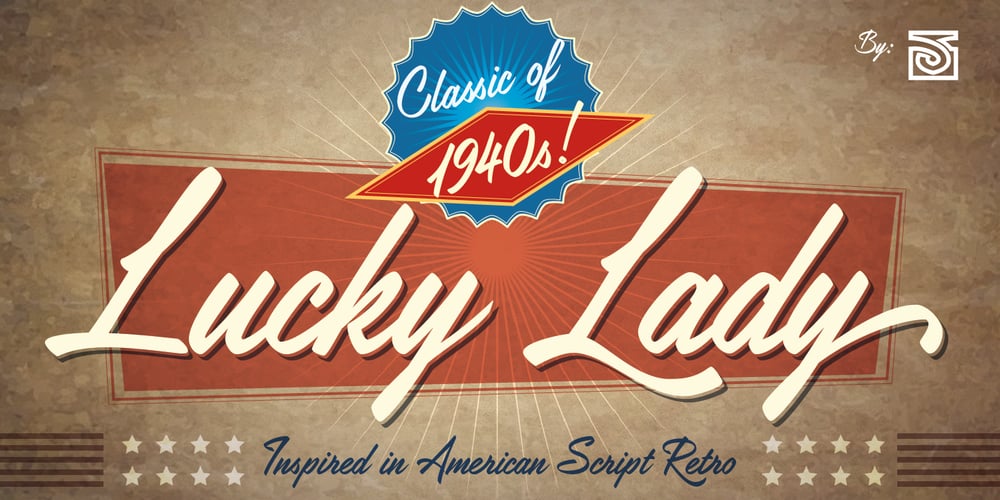
Lucky Lady
Lucky Lady font
Lucky Lady Font Family was designed by John Vargas Beltrán and published by JVB Fonts. Lucky Lady contains 1 styles and family package options. Lucky Lady was inspired by the old, classic art and craft of brush script lettering usually applied in ads of the WWII era and 1940s. The name of the font family refers to one of the most emblematic combat units of the US air force in WWII that were decisive in the victory of the allied forces. Lucky Lady can be mainly used in titles and display texts. It supports East Europe languages. It’s highly recommend to use the combined shadow styles under the main regular basic style layer. Lucky Lady includes standard and discretionary ligatures, alternative style for uppercase, fractions, numerators and denominators, end and/or terminal forms and other OpenType features.